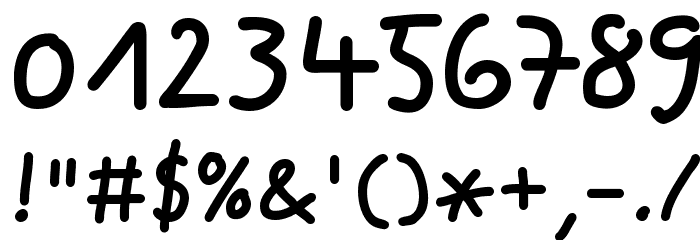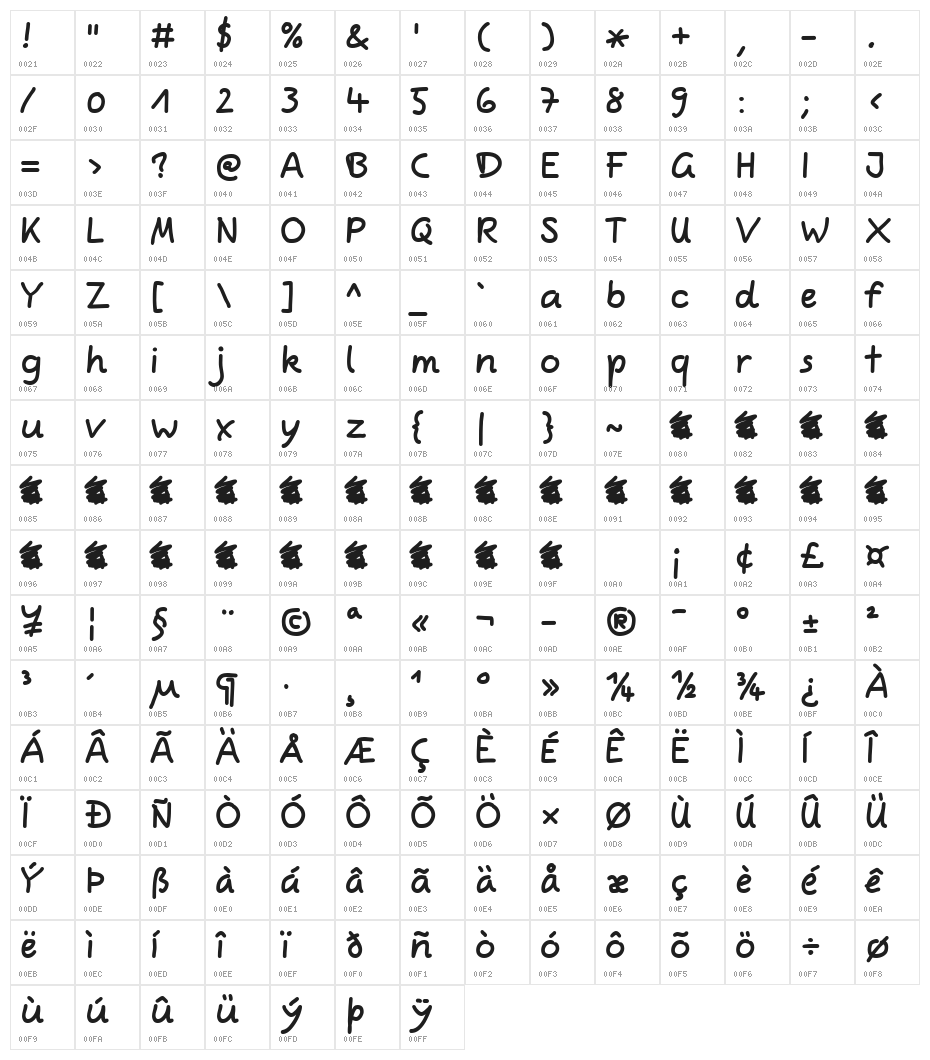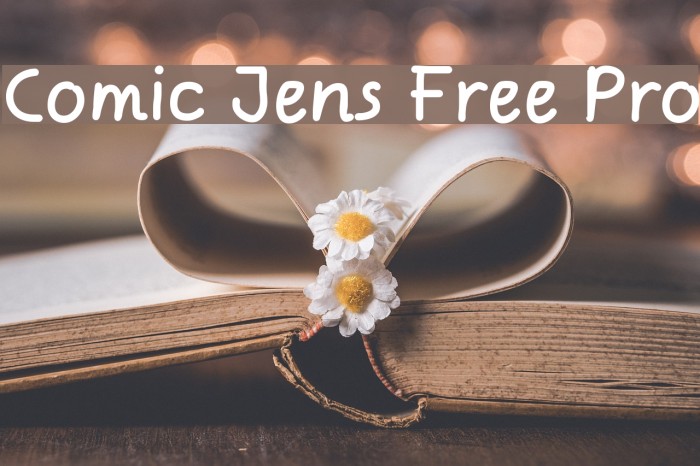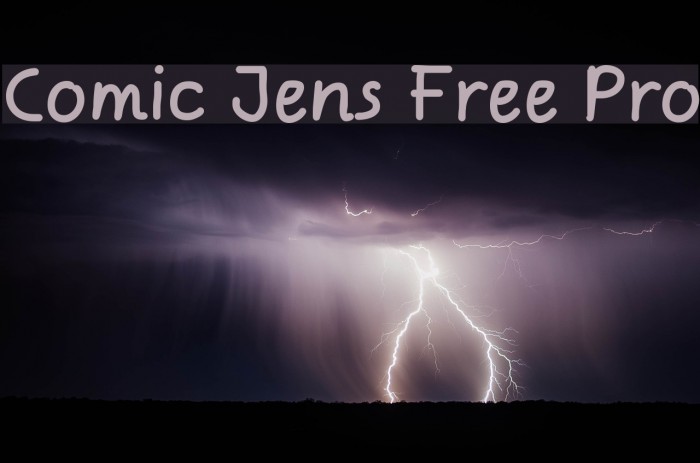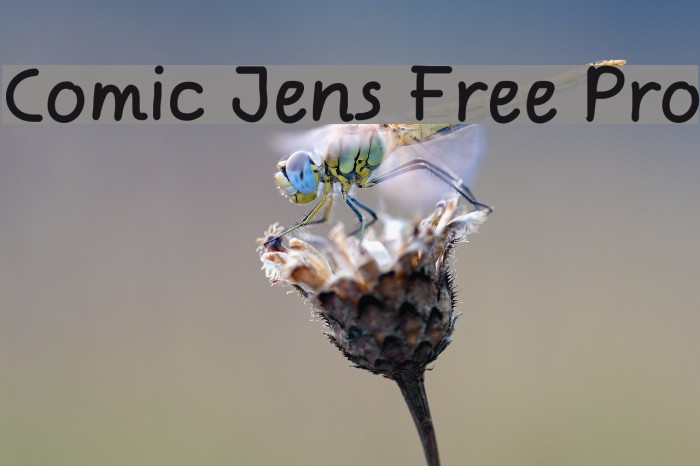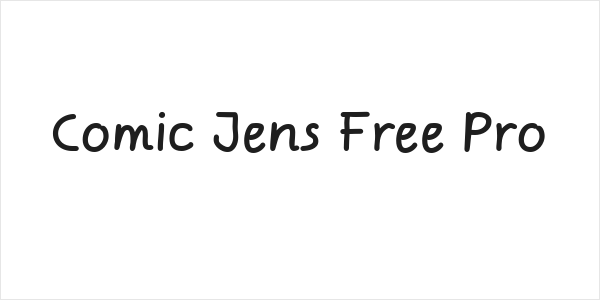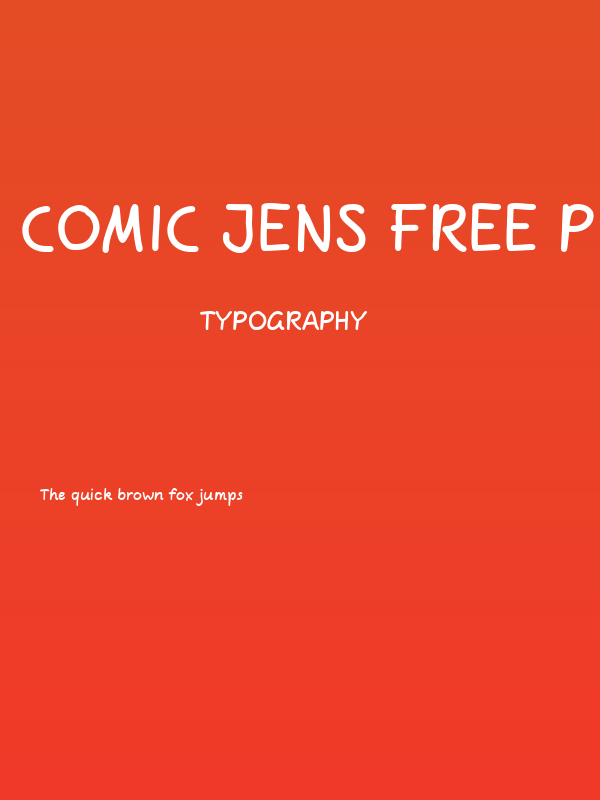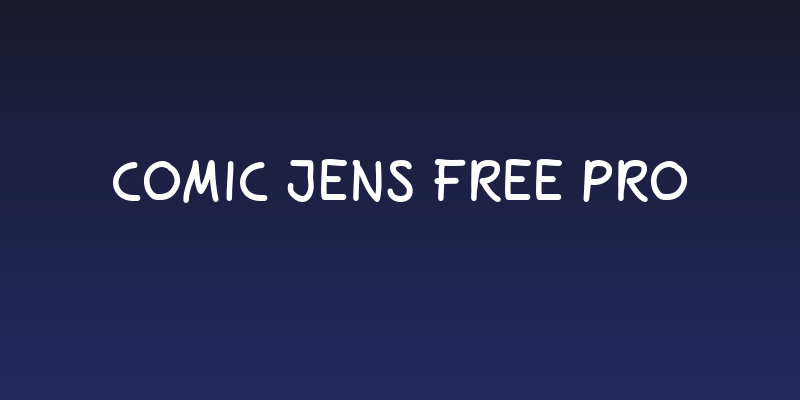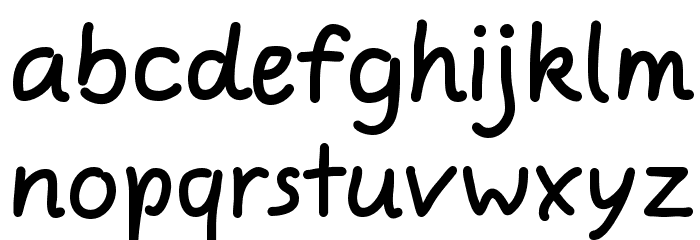
Comic Jens Free Pro Font
Comic Jens Free Pro Description
This playful and informal font features rounded, slightly irregular characters that convey a sense of fun and approachability. The strokes are consistent in weight, giving it a uniform appearance, while the rounded edges soften the overall look. The uppercase and lowercase letters are well-proportioned, maintaining readability across different sizes. The numerals and special characters follow the same whimsical style, making this font versatile for various creative projects. Its handwritten feel adds a personal touch, suitable for casual and lighthearted designs.
| Proposed Projects | Ideal for comic books, children's books, playful branding, greeting cards, and informal invitations. |